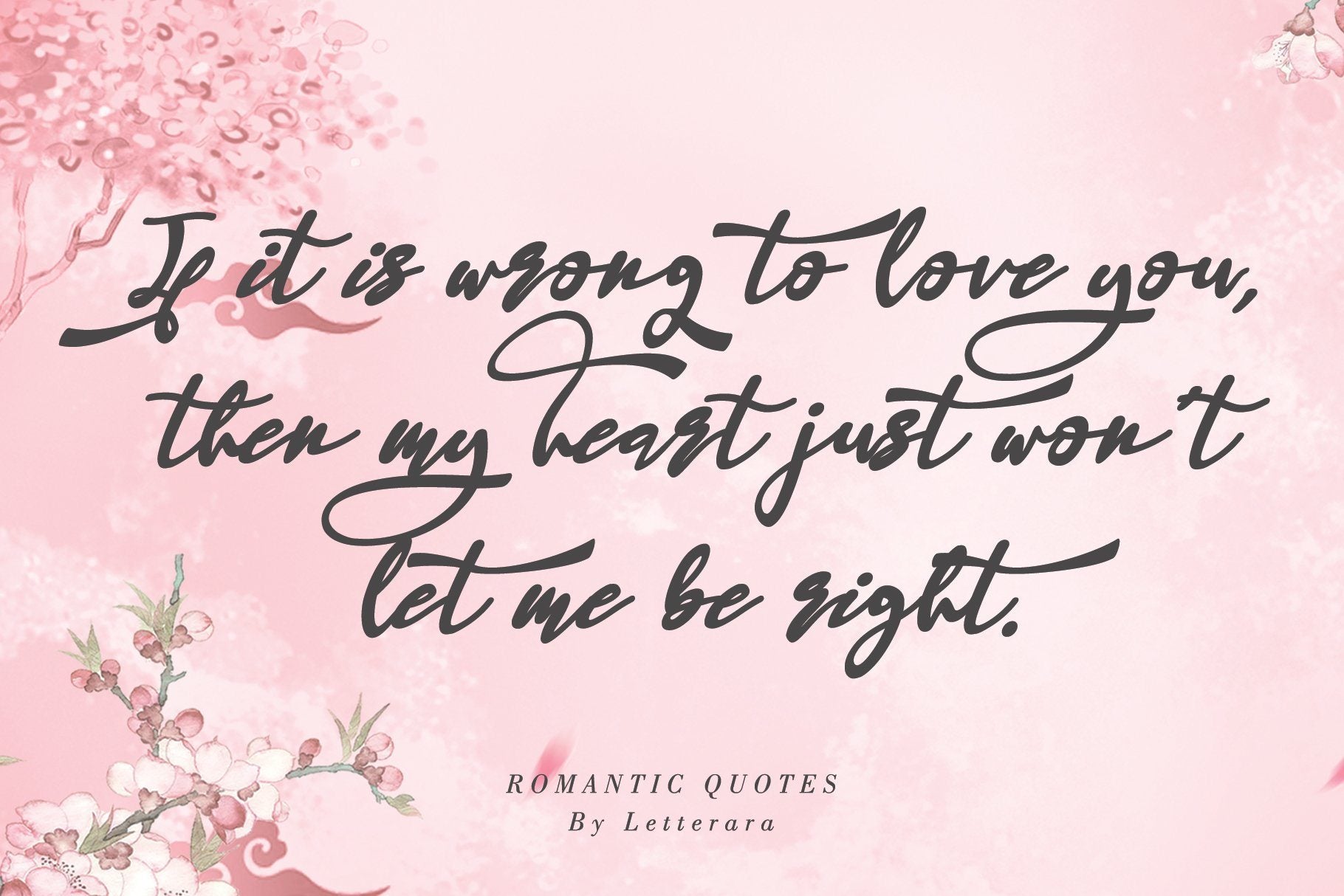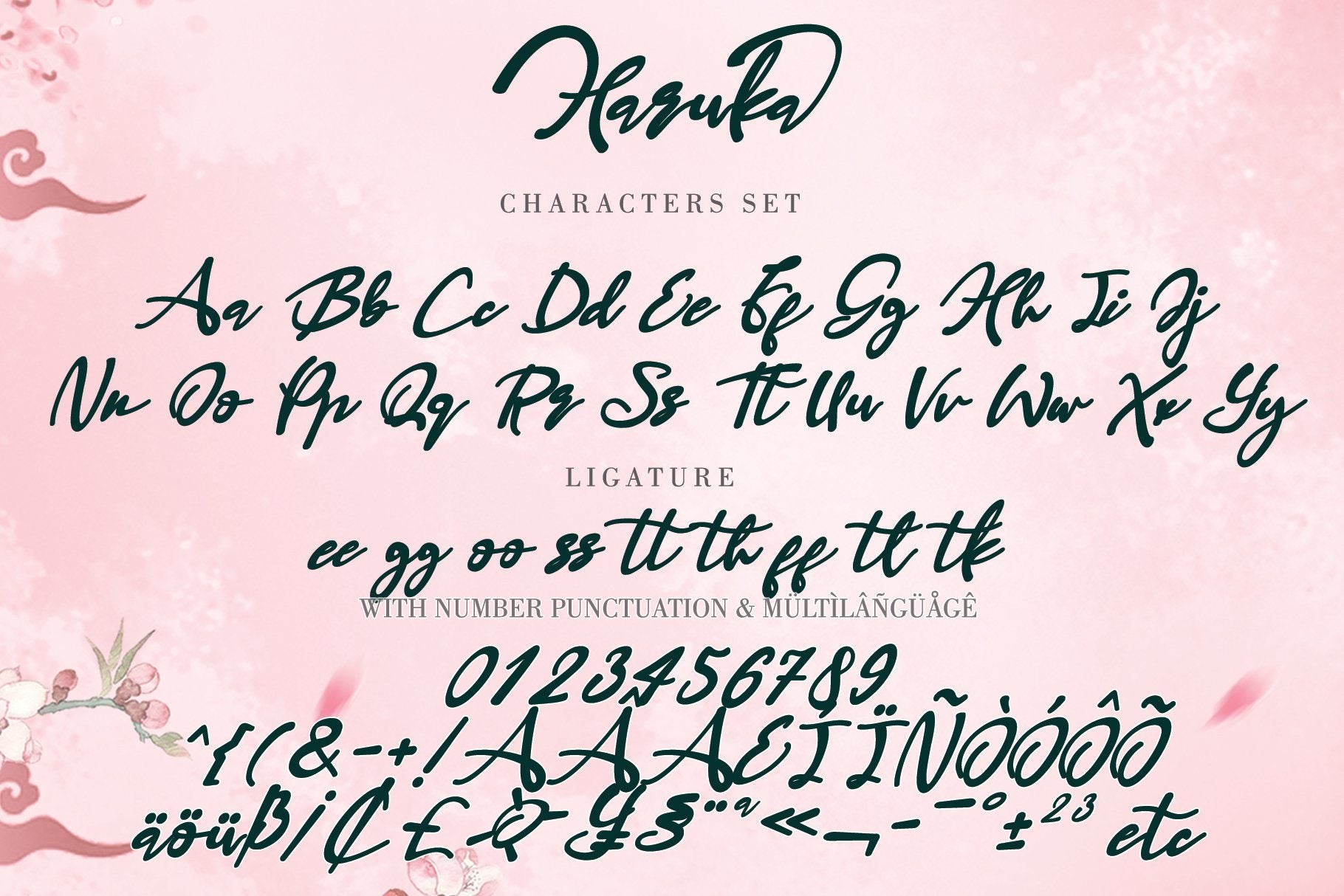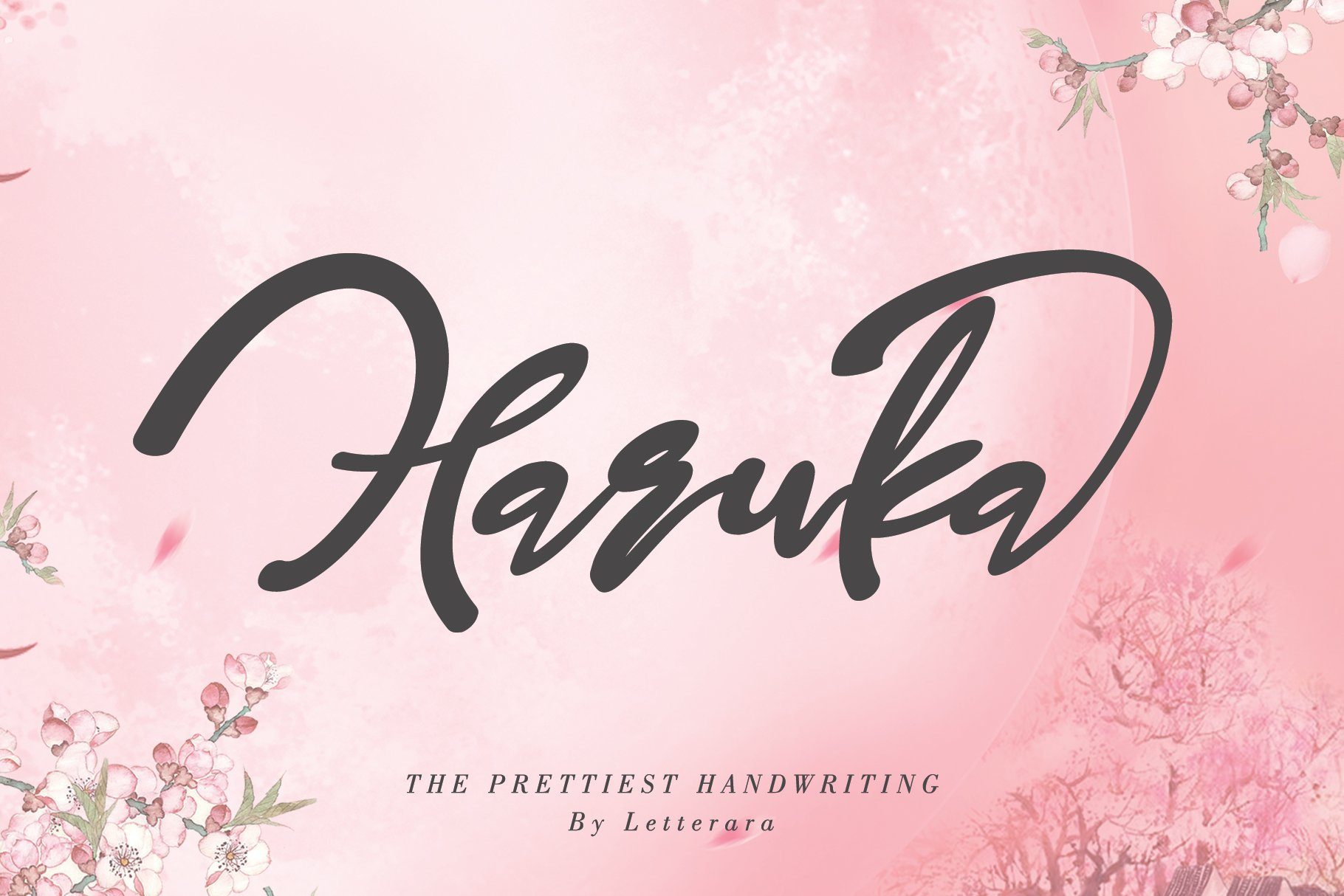
About HARUKA
Inspired by kimono Japanese, Haruka is a font display typeface with a bold and powerful feel. don’t wait anymore, put it in your shopping basket 🙂 and follow me, because there will be many promos! Our other products : BEST SELLER BLACK PINK SIGNATURE ANDORA BRIGITTA HEANFFE EIFFEL IN LOVE ( FONT TRIO) BLACK PINK SUMMER HONG KONG ANGEL MALEFICENT California Street BESTOWENS FAMILY